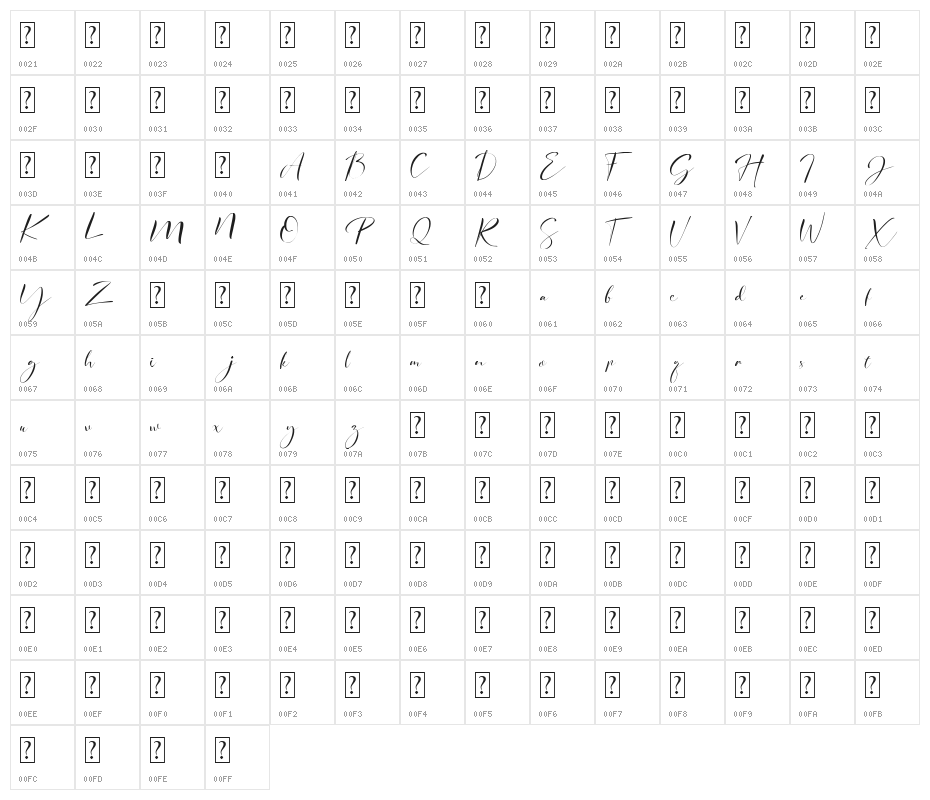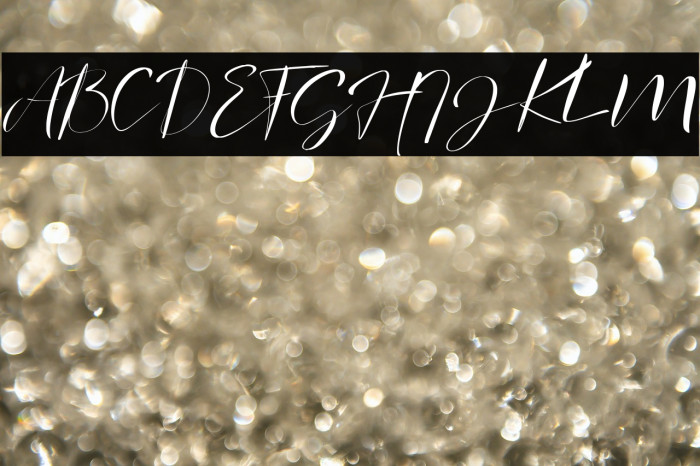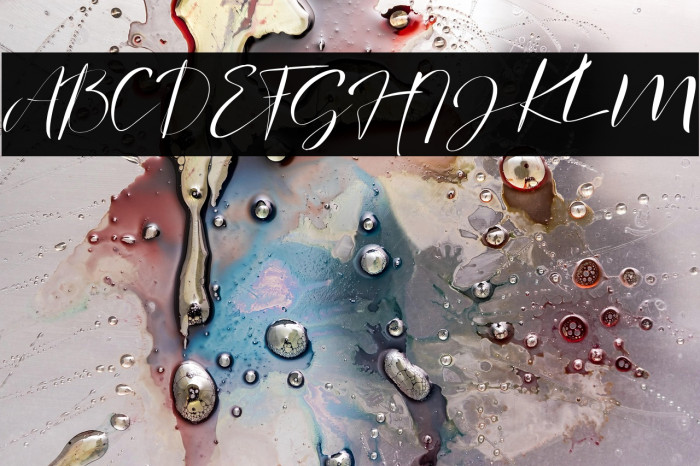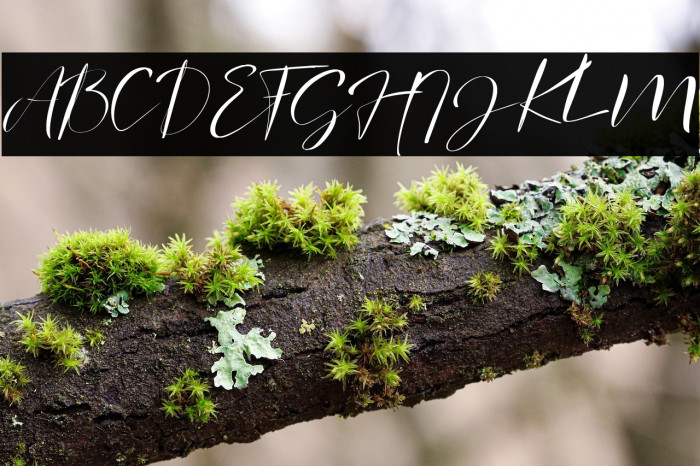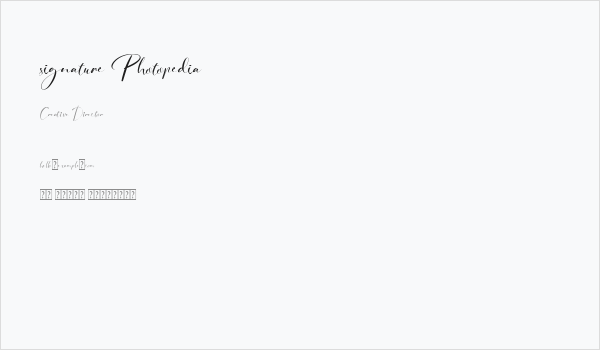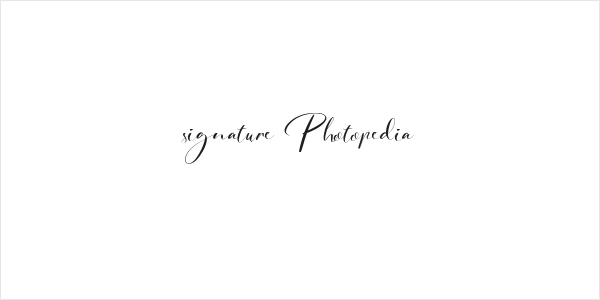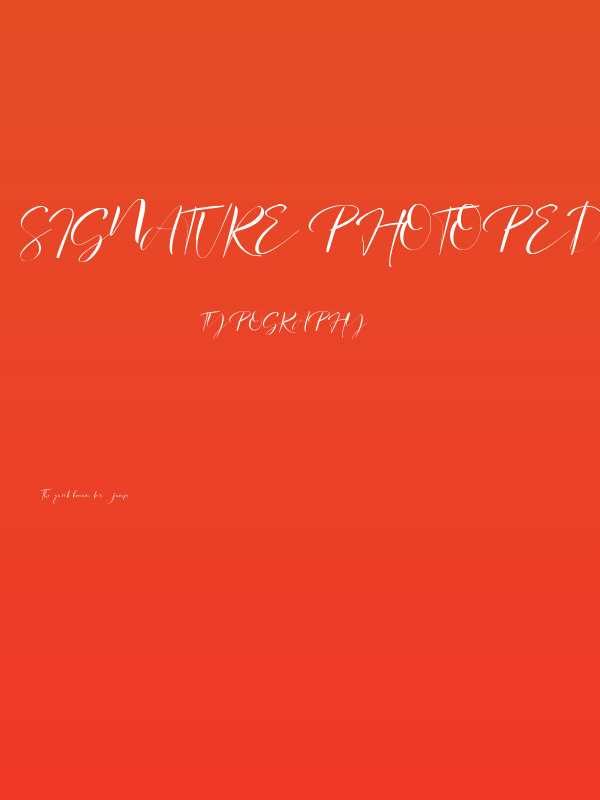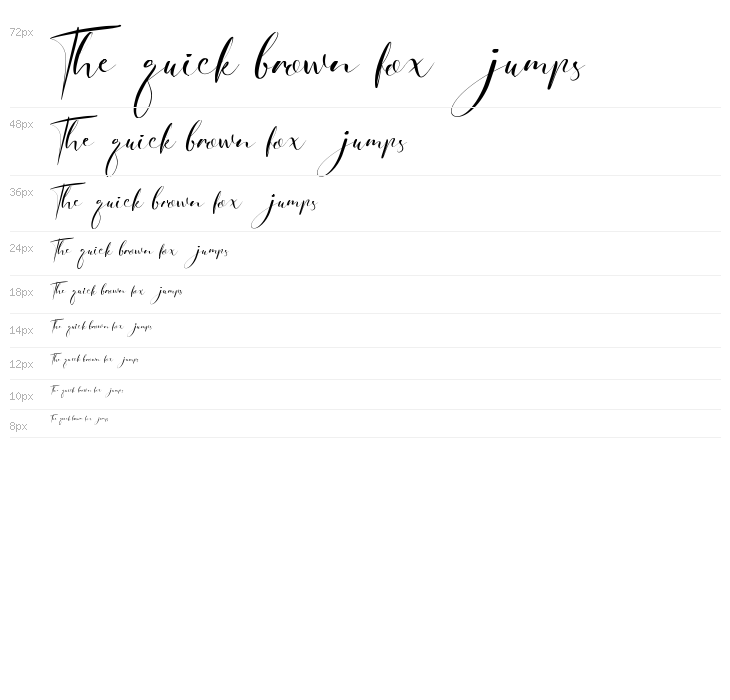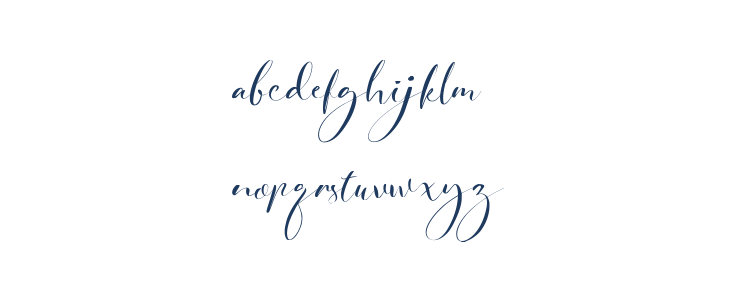
signature Photopedia Font
This elegant script font features flowing, cursive letters with a sophisticated and artistic flair. The uppercase letters are characterized by their sweeping curves and dramatic flourishes, while the lowercase letters maintain a graceful and fluid style. The font exhibits a high contrast in stroke thickness, adding to its refined appearance. The overall design is reminiscent of traditional calligraphy, making it ideal for projects that require a touch of elegance and class. The spacing between characters is tight, enhancing the connected and continuous feel of the script.
CategoriesCalligraphic
Overall StyleElegant, Classic
Use CaseLogos, Invitations, Decorative Headings
Proposed ProjectsIdeal for wedding invitations, elegant branding, personal signatures, and decorative headings.